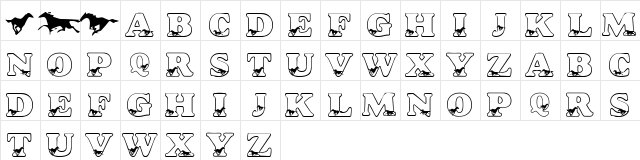
LMS Alicia's Horses Regular Font Preview
LMS Alicia's Horses Regular
Design Context for LMS Alicia's Horses Typeface
LMS Alicia's Horses is a composed and adaptable typeface that performs quietly and consistently across a wide range of design contexts.